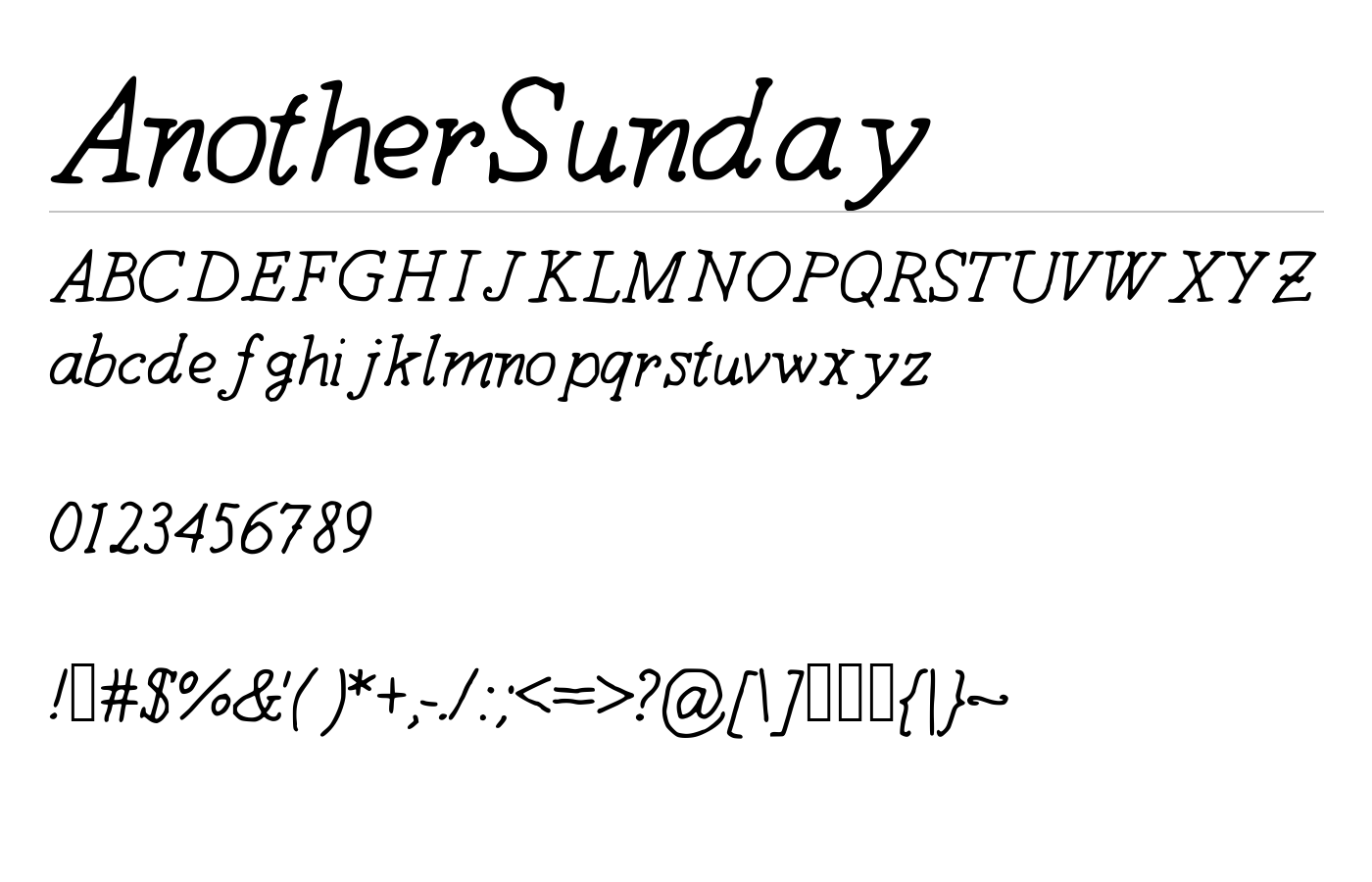
AnotherSunday is a charming serif font with a hand-drawn feel, featuring gently irregular strokes and a light, elegant weight. Its slightly condensed letterforms and subtle stroke contrast give it a casual yet refined personality, making it ideal for creative projects, invitations, and editorial use where a touch of warmth and individuality is desired. This font works beautifully for branding and headlines that want to convey a friendly, artistic, and approachable style.
AnotherSunday Font
About AnotherSunday Font